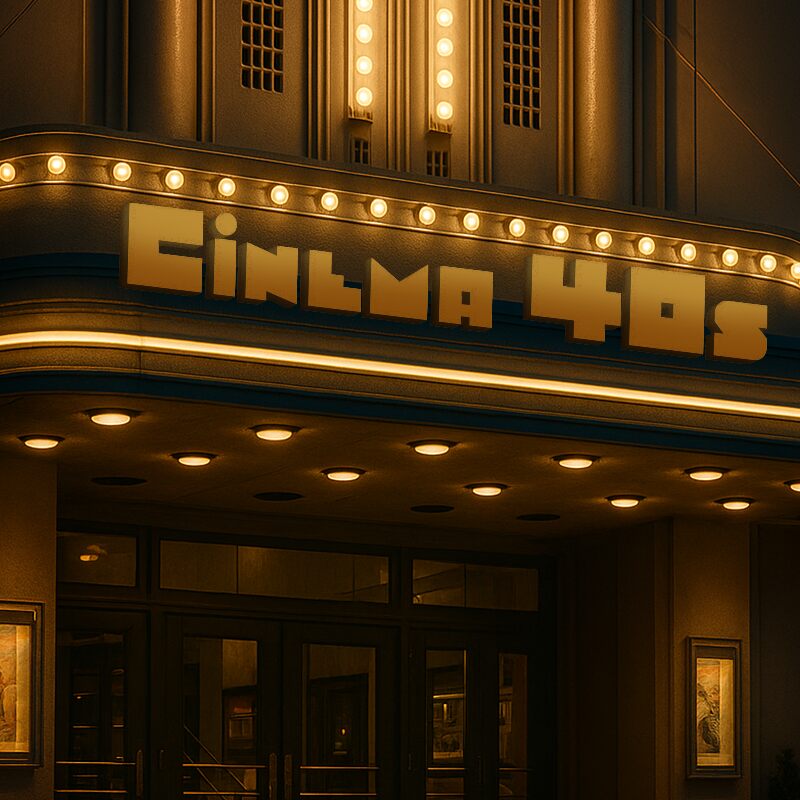
Cinema 40s Regular
Cinema 40s font by Galdino Otten Fonts combines geometric, angular, and futuristic shapes to deliver a digital aesthetic. This free display font is bold, expanded, industrial, and very sharp-edged making it suitable for impactful uses. Its characters have a distinct visible personality that adds interest and an authentic lifestyle element effortlessly.
Cinema 40s is a modern vintage font for posters, websites, banners, social media posts or profiles bios. The set can be used in logos and branding projects especially when they’re related to digital services like software development or online shops. Other ideas include mobile applications, magazines print headlines with matching editorials or fashion section titles,.